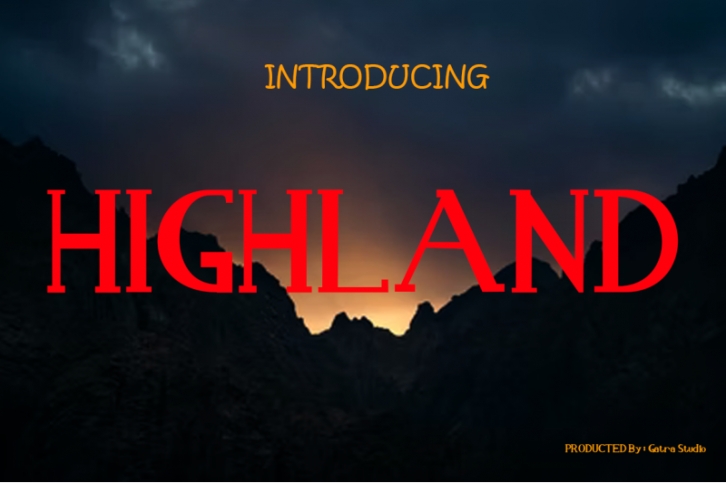
Introducing a cute handwriting "HIGHLAND" Modern Display Font!
If you are needing a touch of casual modern display for your designs, this font was created for you!